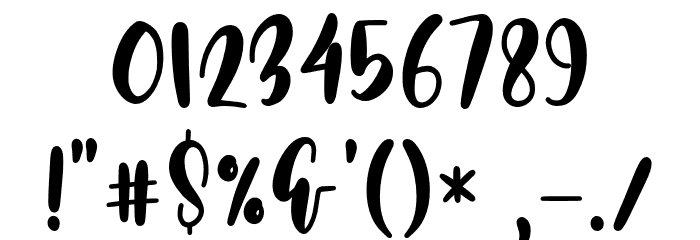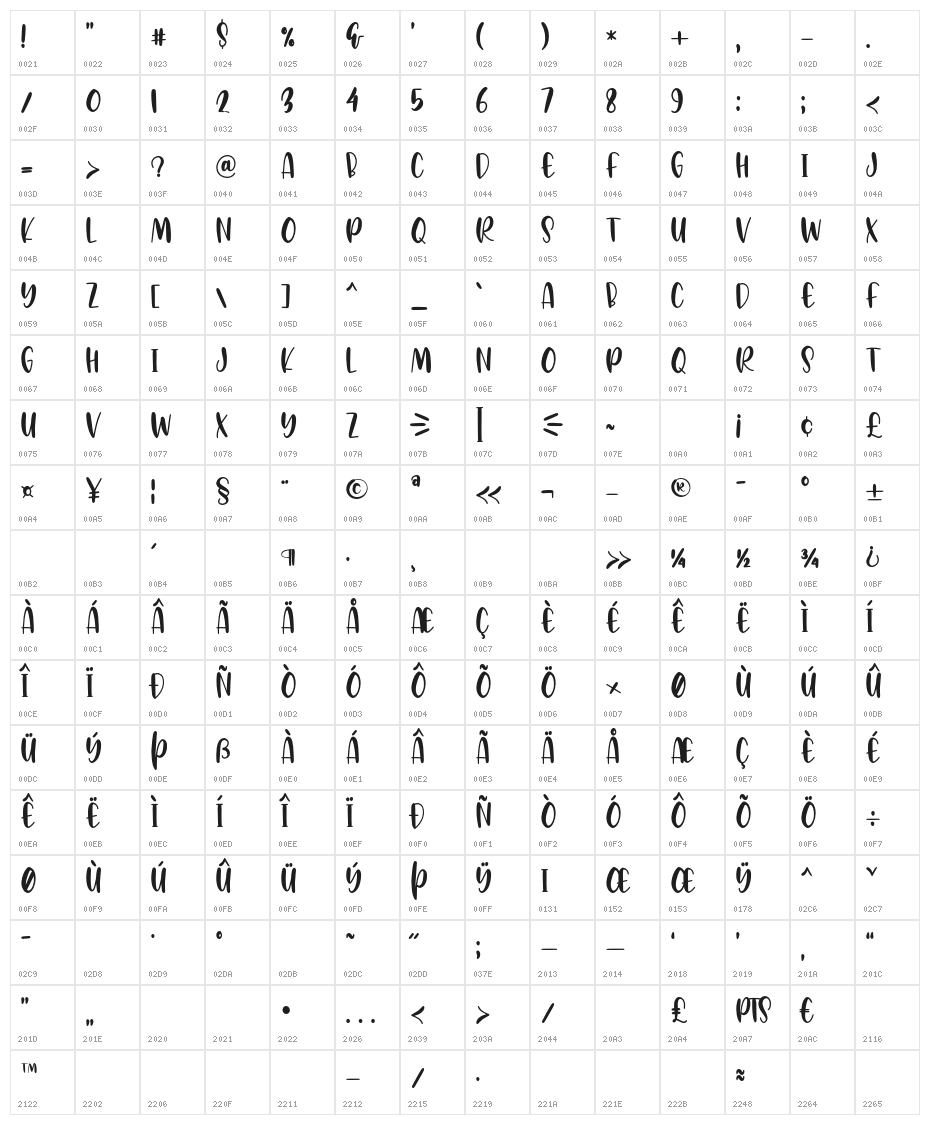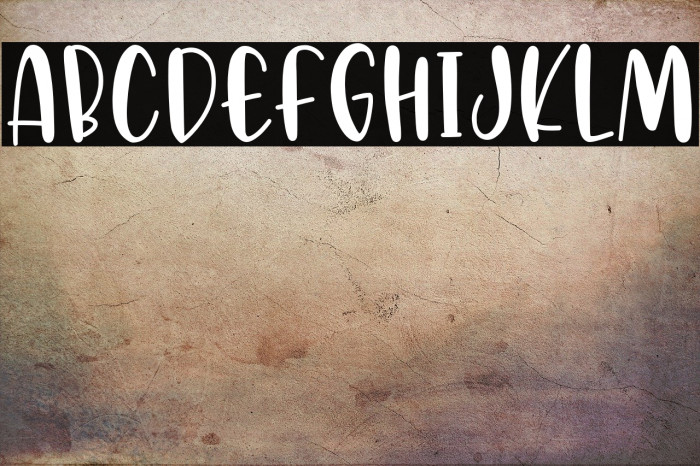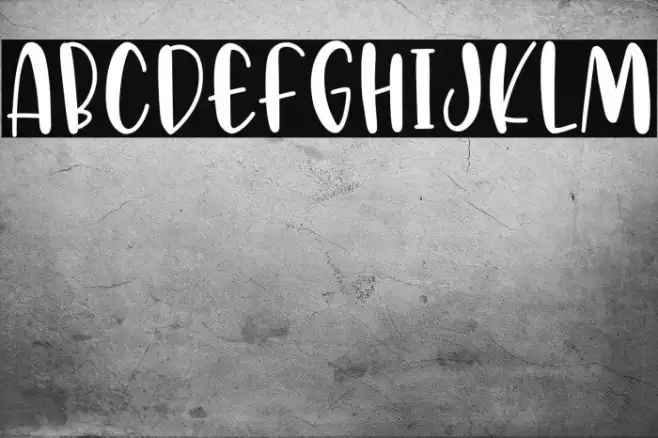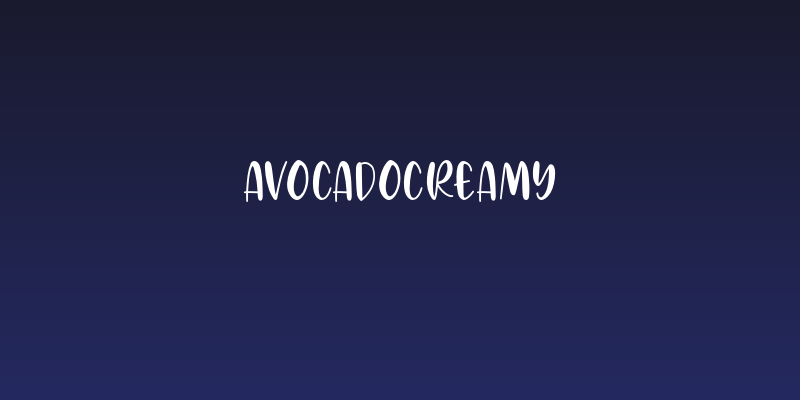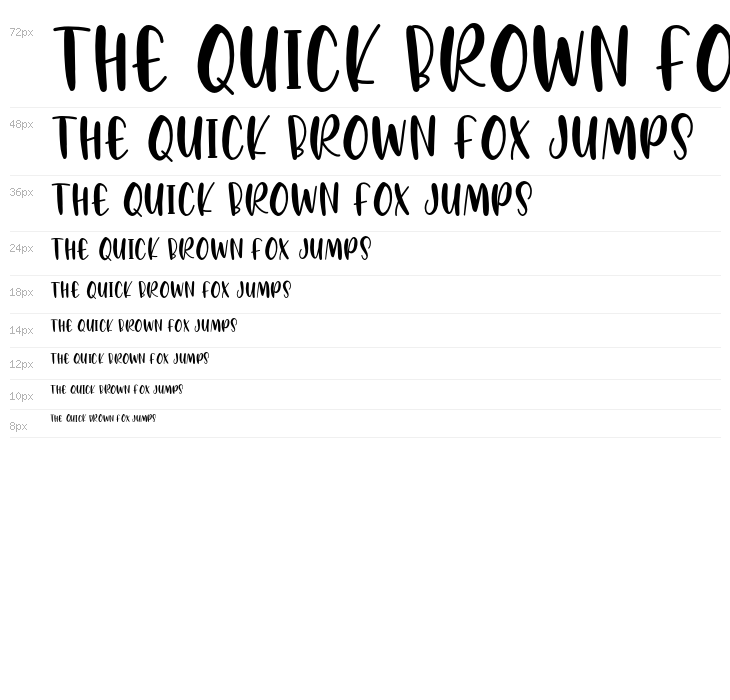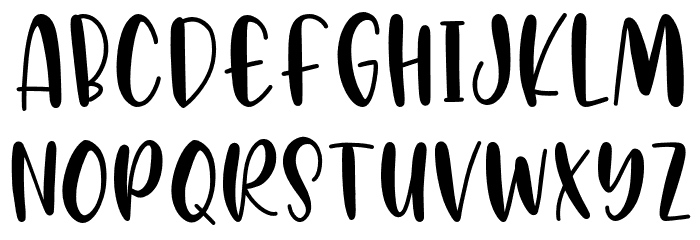
AvocadoCreamy Font
AvocadoCreamy Description
This playful and energetic font features a handwritten style with bold, rounded strokes that convey a sense of warmth and friendliness. The characters are slightly slanted, adding a dynamic flow to the text. Each letter is crafted with a smooth, consistent stroke width, giving it a cohesive and polished appearance. The uppercase and lowercase letters maintain a uniform height, enhancing readability while retaining a casual, informal vibe. The numerals and special characters are designed to match the overall aesthetic, making this font versatile for various creative projects.
| Proposed Projects | Ideal for greeting cards, playful branding, social media graphics, and children's book covers. |